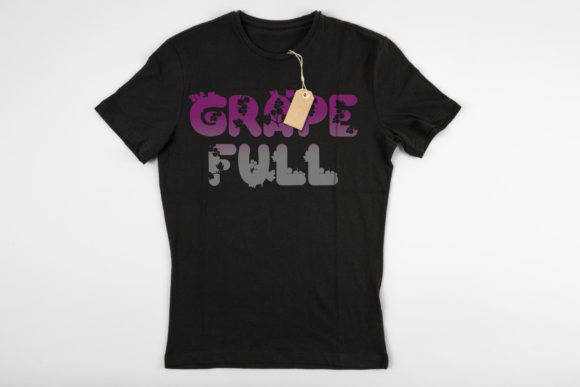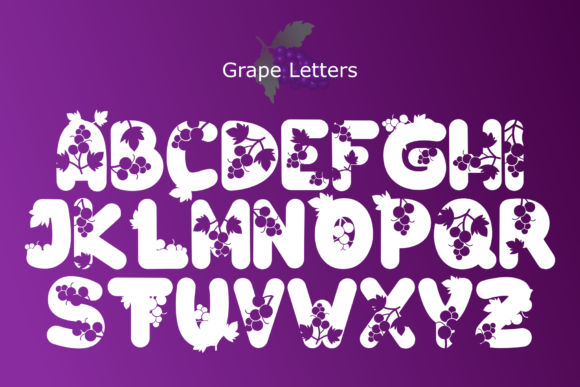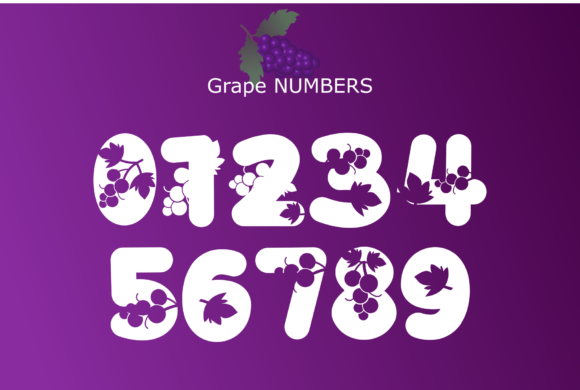
Introducing Grape Font: The Perfect Summer Display Font
Are you looking for a unique and eye-catching display font to elevate your summer-related design projects? Look no further than Grape Font! This stunning font features adorable grape ornaments that will add a touch of whimsy and fun to any design. In this article, we’ll dive into the world of Grape Font and explore its features, benefits, and uses.
What is Grape Font?
Grape Font is an incredibly unique display font that is perfect for summer-themed projects. The font features grape ornaments that add a playful and refreshing touch to any design. With its bold and eye-catching style, Grape Font is sure to make your designs stand out from the crowd.
Key Features of Grape Font
- Unique Grape Ornaments: The font features adorable grape ornaments that will add a touch of whimsy to your designs.
- Display Font: Grape Font is a display font, making it perfect for headlines, titles, and other attention-grabbing elements.
- Summer Theme: The font’s summer theme makes it ideal for projects related to summer, such as beach, travel, or outdoor-themed designs.
Benefits of Using Grape Font
So, why should you choose Grape Font for your design projects? Here are just a few benefits of using this amazing font:
- Adds Visual Interest: Grape Font’s unique grape ornaments add visual interest to your designs, making them more engaging and attention-grabbing.
- Perfect for Summer Projects: The font’s summer theme makes it perfect for projects related to summer, such as beach, travel, or outdoor-themed designs.
- Versatile: Grape Font can be used for a variety of design projects, from posters and flyers to social media graphics and website headers.
- Easy to Pair: The font is easy to pair with other fonts, making it simple to create a cohesive look for your designs.
Uses for Grape Font
Grape Font is a versatile font that can be used for a variety of design projects. Here are some ideas to get you started:
- Summer Posters: Use Grape Font to create eye-catching posters for summer events, such as beach festivals or outdoor concerts.
- Social Media Graphics: Add a touch of summer fun to your social media graphics with Grape Font.
- Website Headers: Use Grape Font to create a bold and eye-catching website header that sets the tone for your summer-themed website.
- Party Invitations: Create fun and playful party invitations with Grape Font.
Tips for Using Grape Font
Here are some tips for getting the most out of Grape Font:
- Use it as a Headline Font: Grape Font is perfect for headlines and titles, so use it to grab attention and draw the eye.
- Experiment with Colors: Grape Font looks great in a variety of colors, so don’t be afraid to experiment and find the perfect hue for your design.
- Pair it with Other Fonts: Grape Font is easy to pair with other fonts, so try combining it with a sans-serif font for a bold and modern look.
Grape Font is an incredibly unique and versatile display font that is perfect for summer-related design projects. With its adorable grape ornaments and bold style, it’s sure to add a touch of whimsy and fun to any design. Whether you’re a designer, crafter, or DIY enthusiast, Grape Font is a great addition to your font collection. So why wait? Download Grape Font today and start creating your own summer-themed designs!